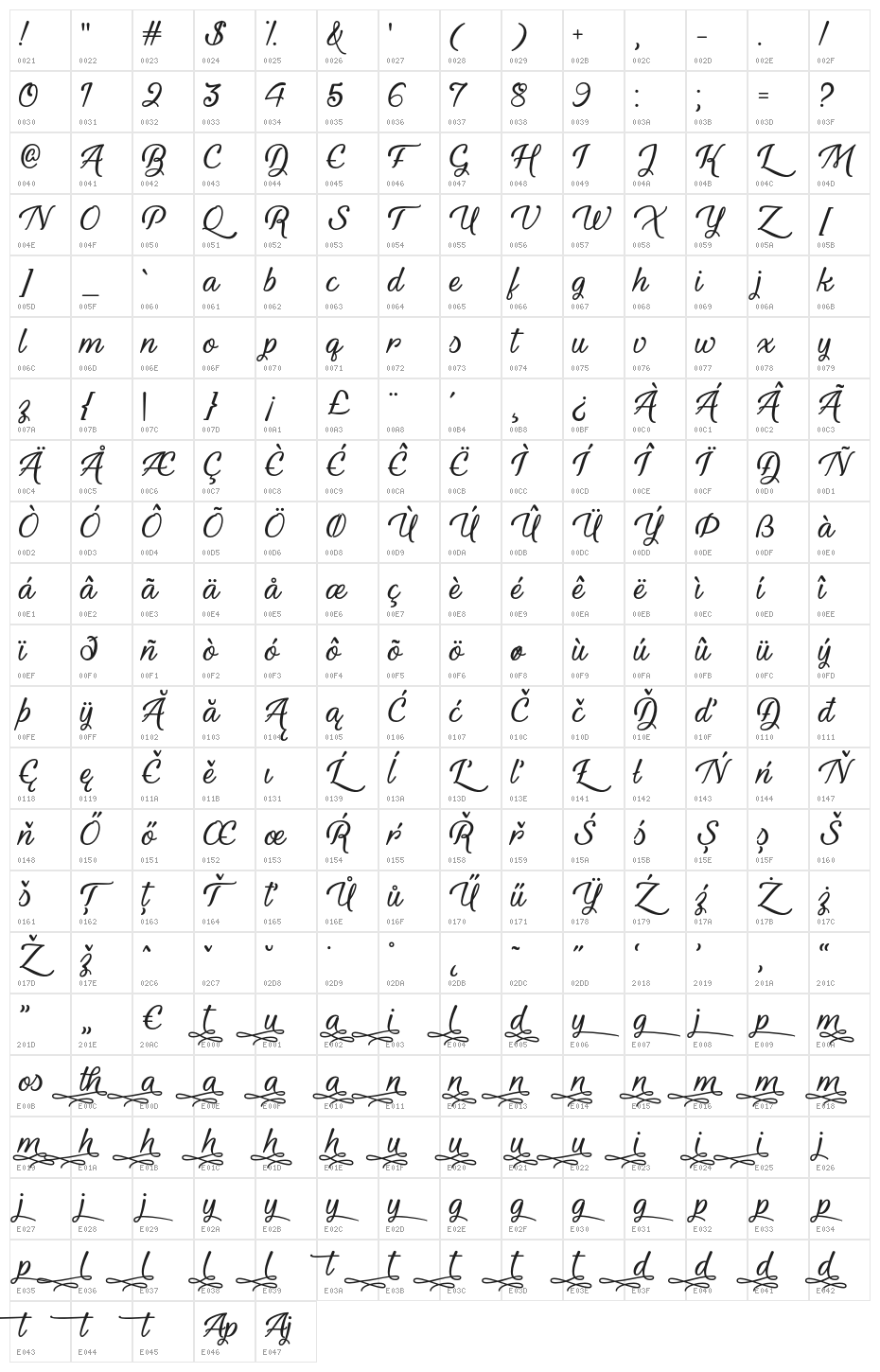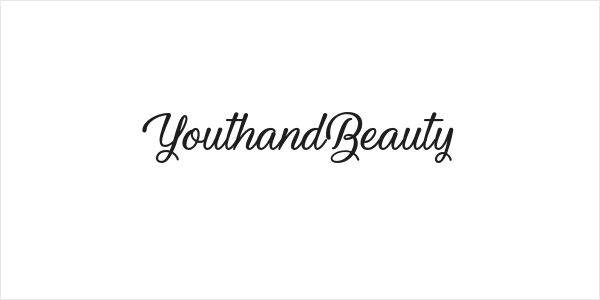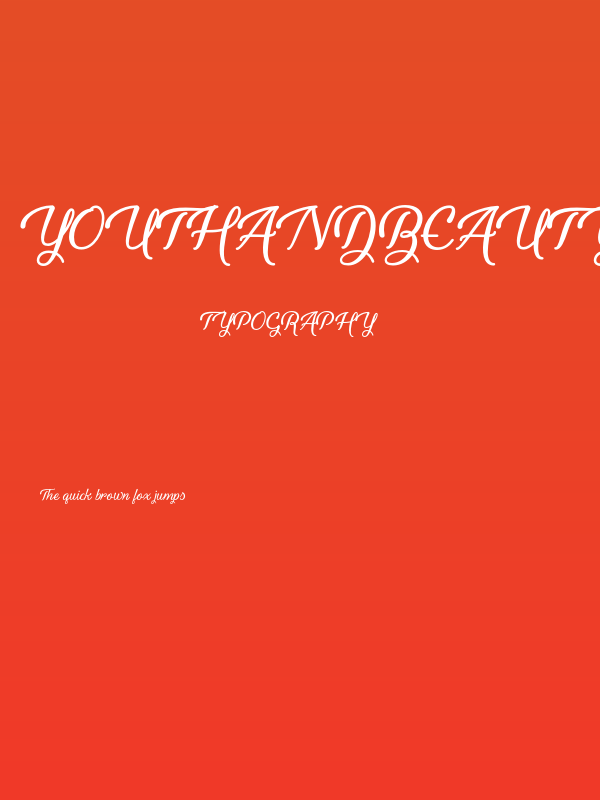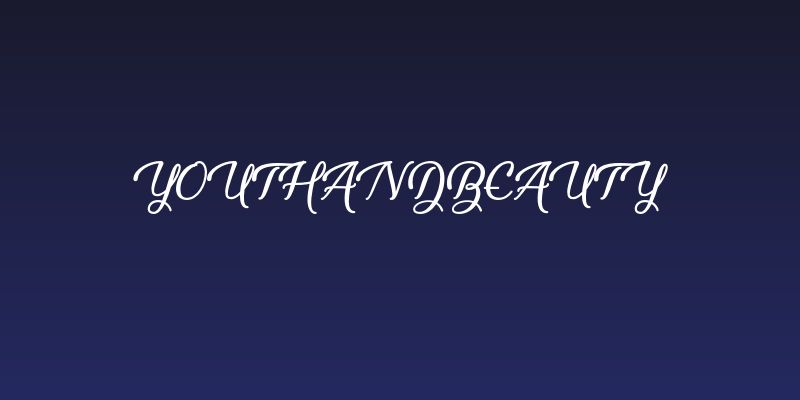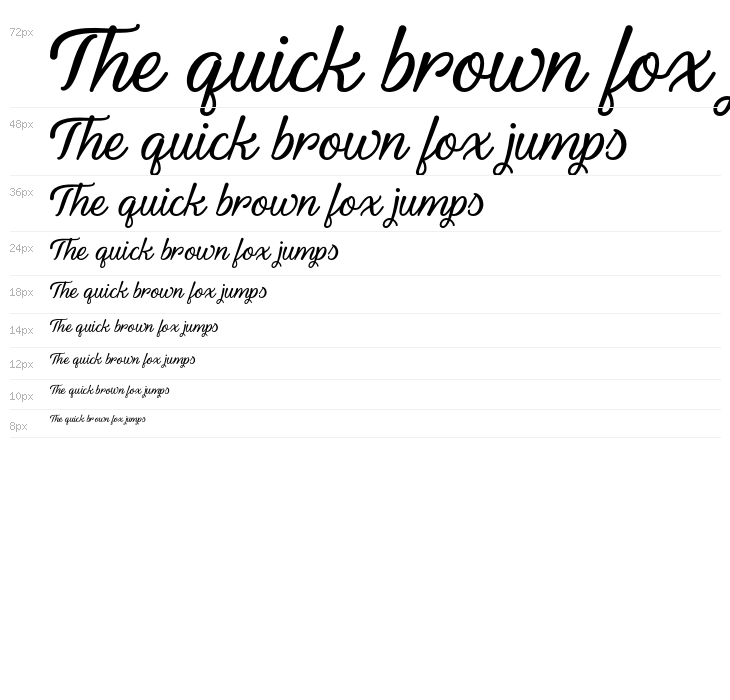
YouthandBeauty Font
YouthandBeauty Description
This elegant script font features a flowing, cursive style with smooth, connected strokes that give it a graceful and sophisticated appearance. The uppercase letters are ornate and slightly larger, providing a striking contrast to the more compact lowercase letters. The numerals and special characters maintain the same fluidity, ensuring consistency across all characters. The font's design is reminiscent of classic calligraphy, with a modern twist that makes it suitable for contemporary use. Its refined curves and loops add a touch of elegance, making it ideal for projects that require a personal and stylish touch.
| Overall Style | Elegant and Modern |
| Proposed Projects | Wedding invitations, greeting cards, branding, and elegant packaging designs. |